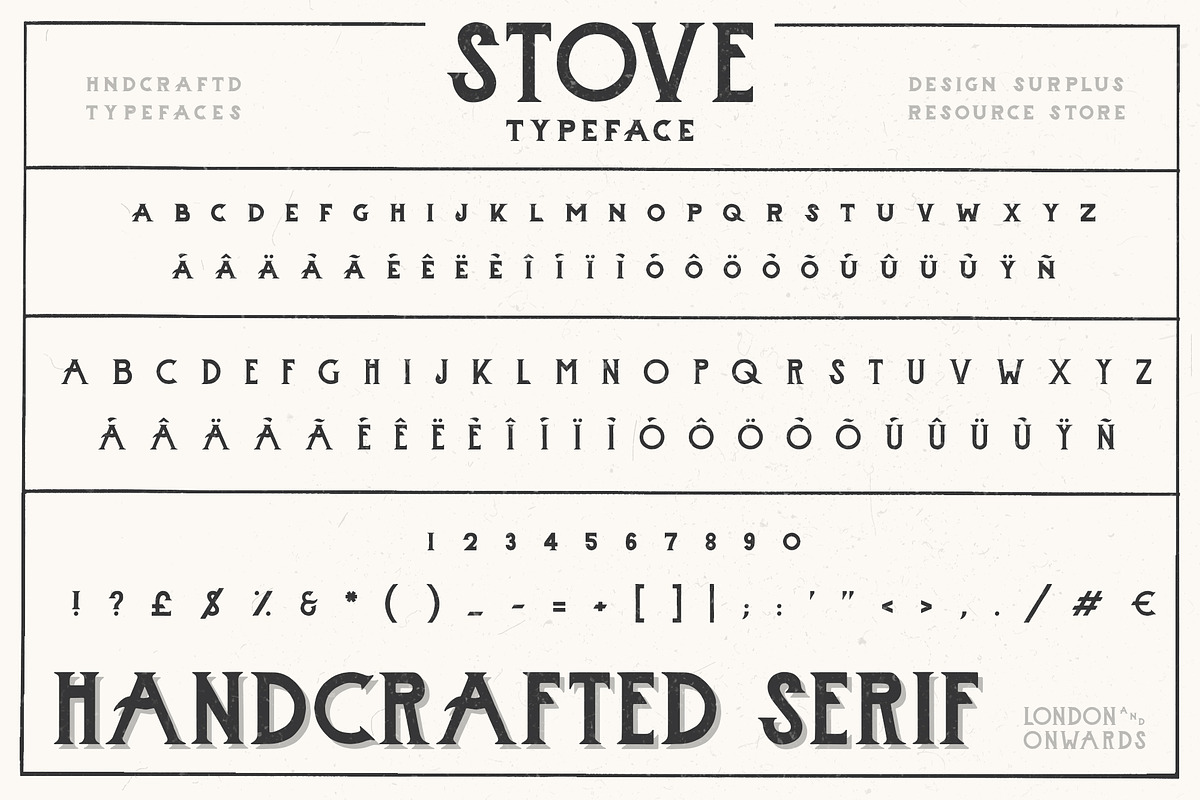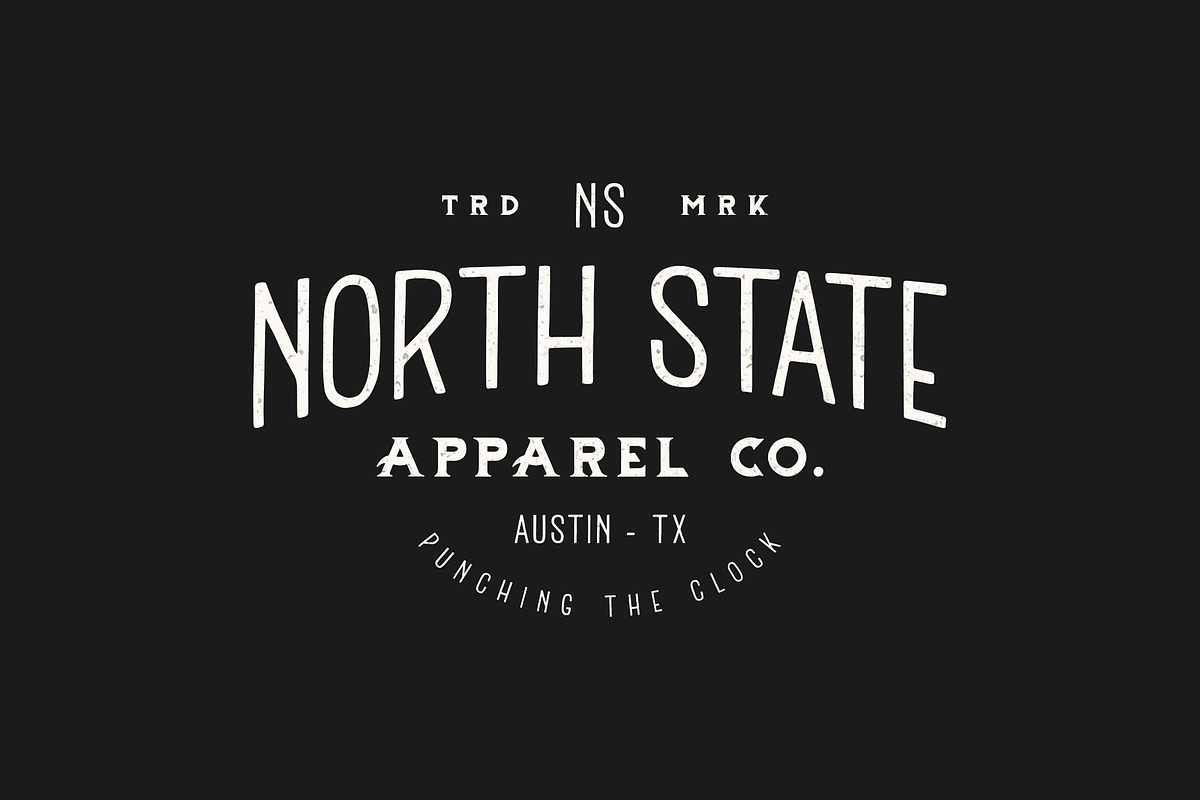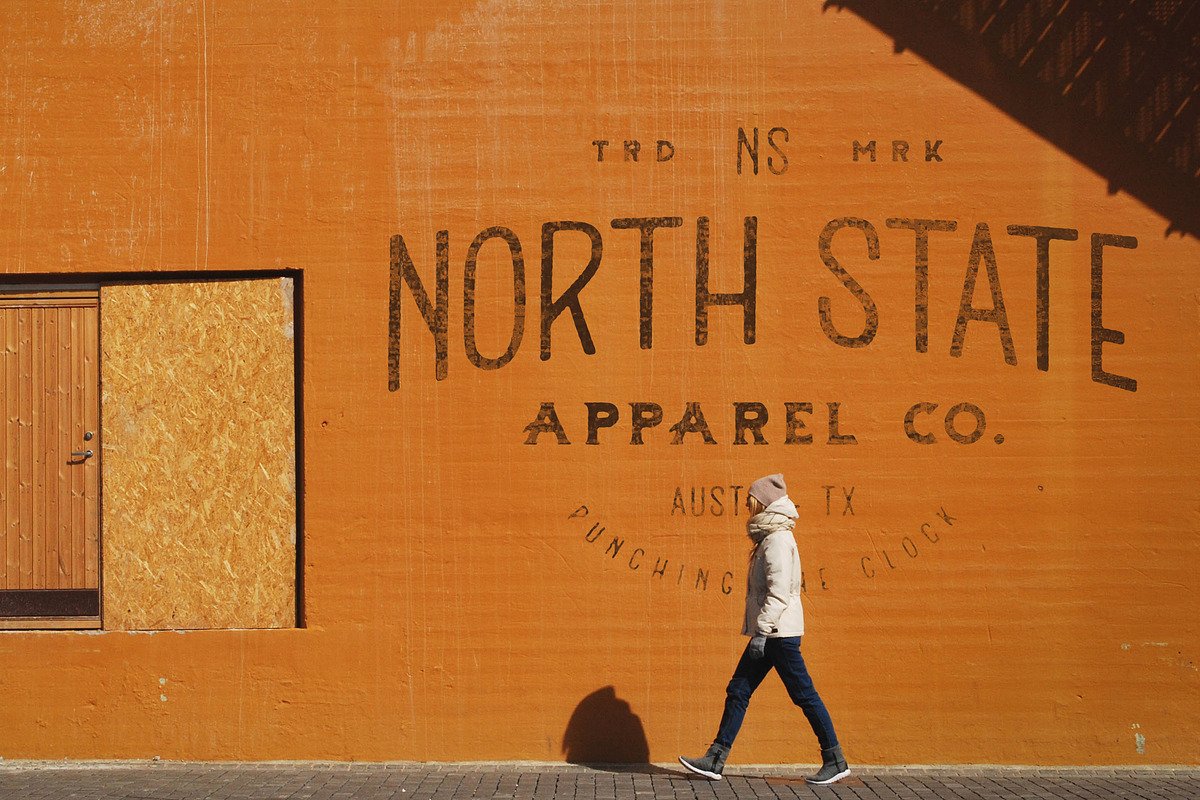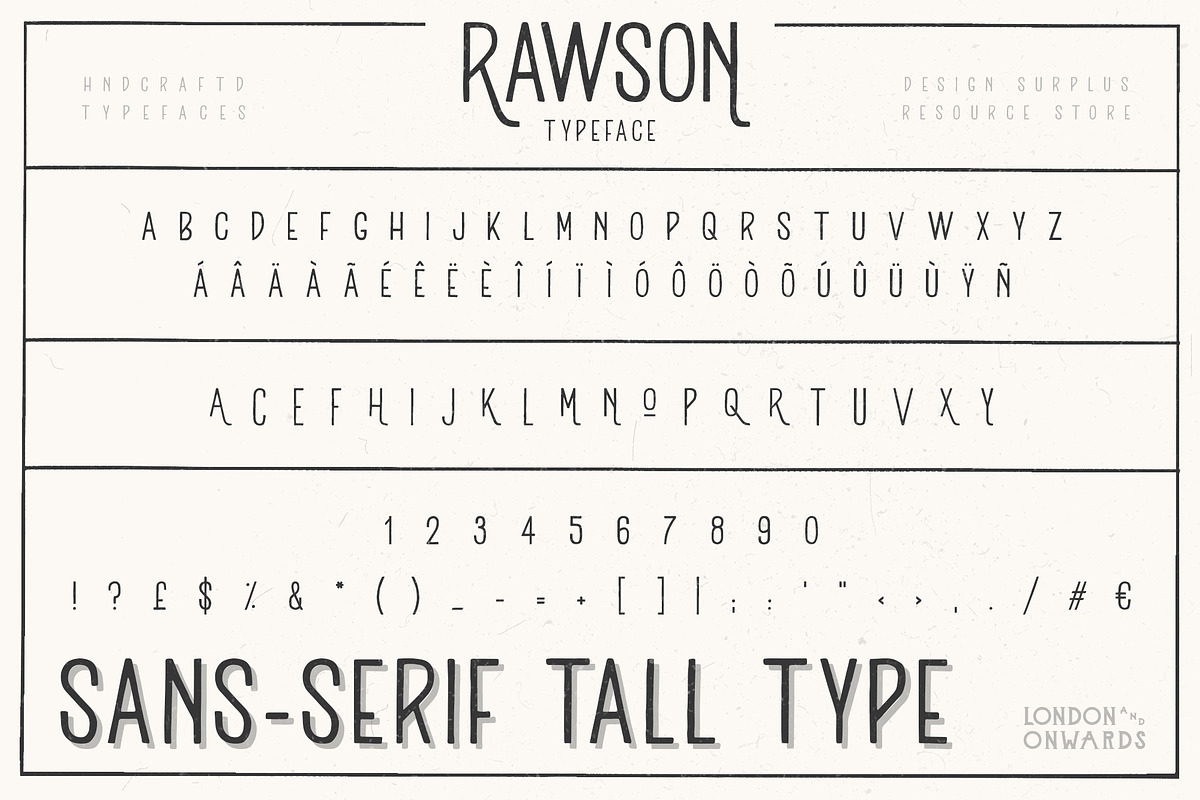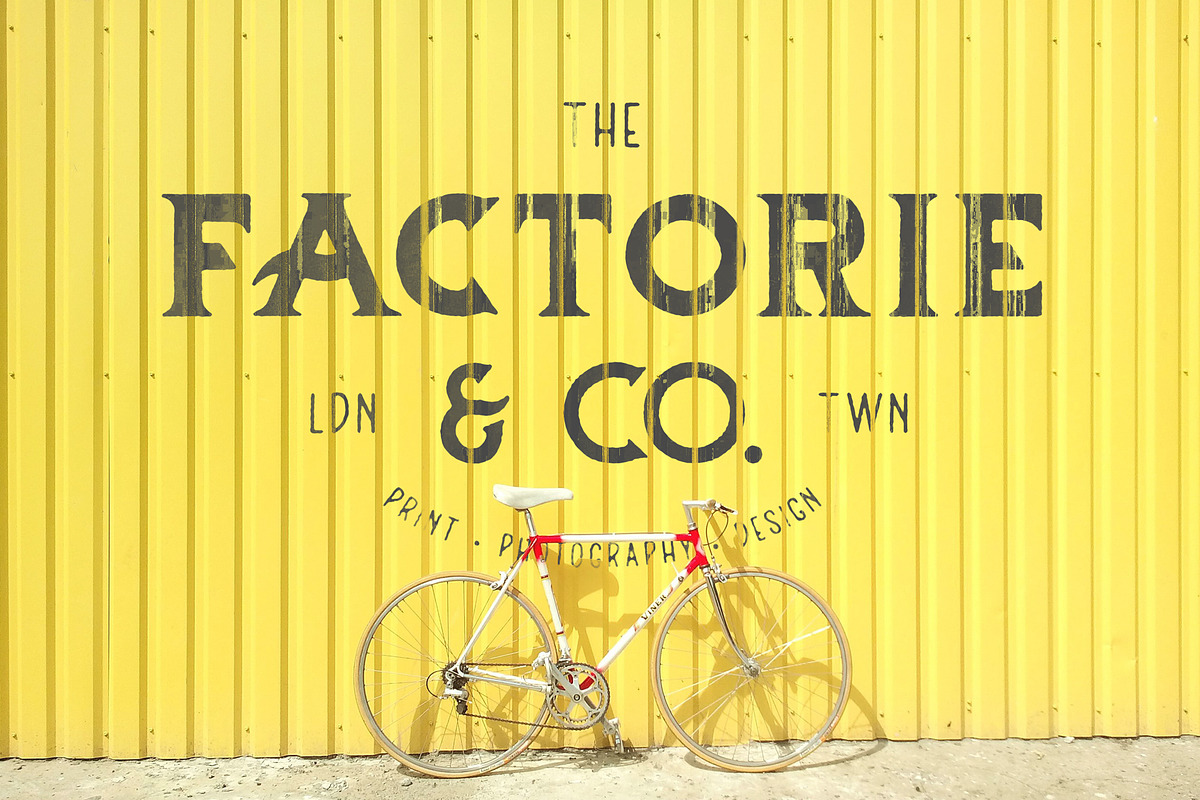
Rawson & Stove Typefaces
Rawson & Stove Typefaces by Design Surplus is a font selected for branding, posters, packaging, typography.
Why Rawson & Stove Typefaces is worth a look
Rawson & Stove Typefaces by Design Surplus fits naturally into Branding, posters, packaging, typography.